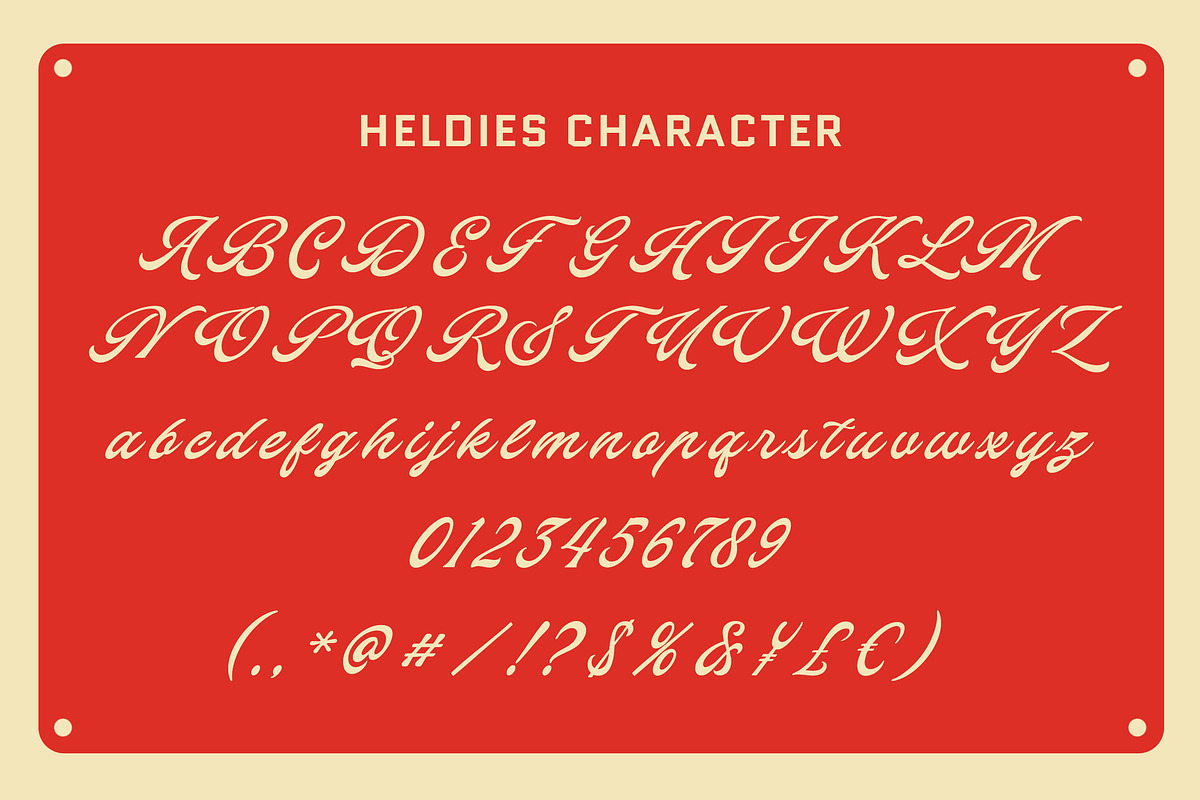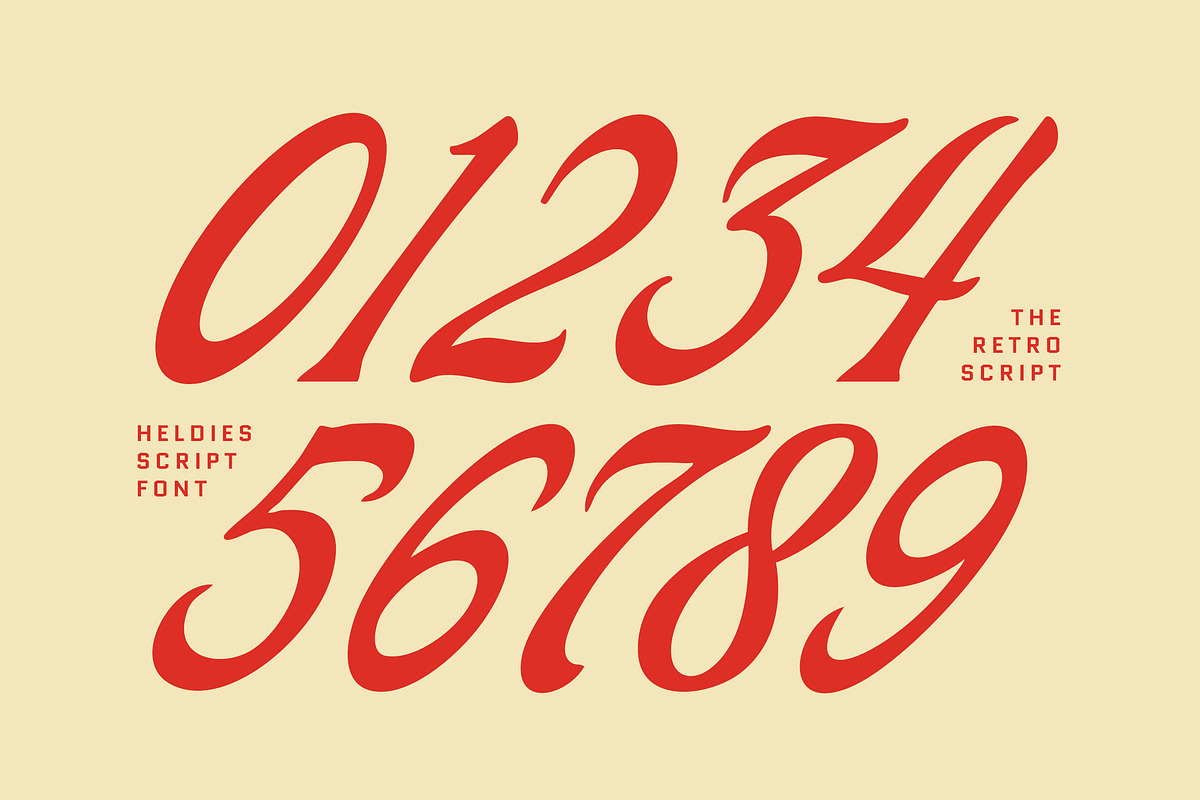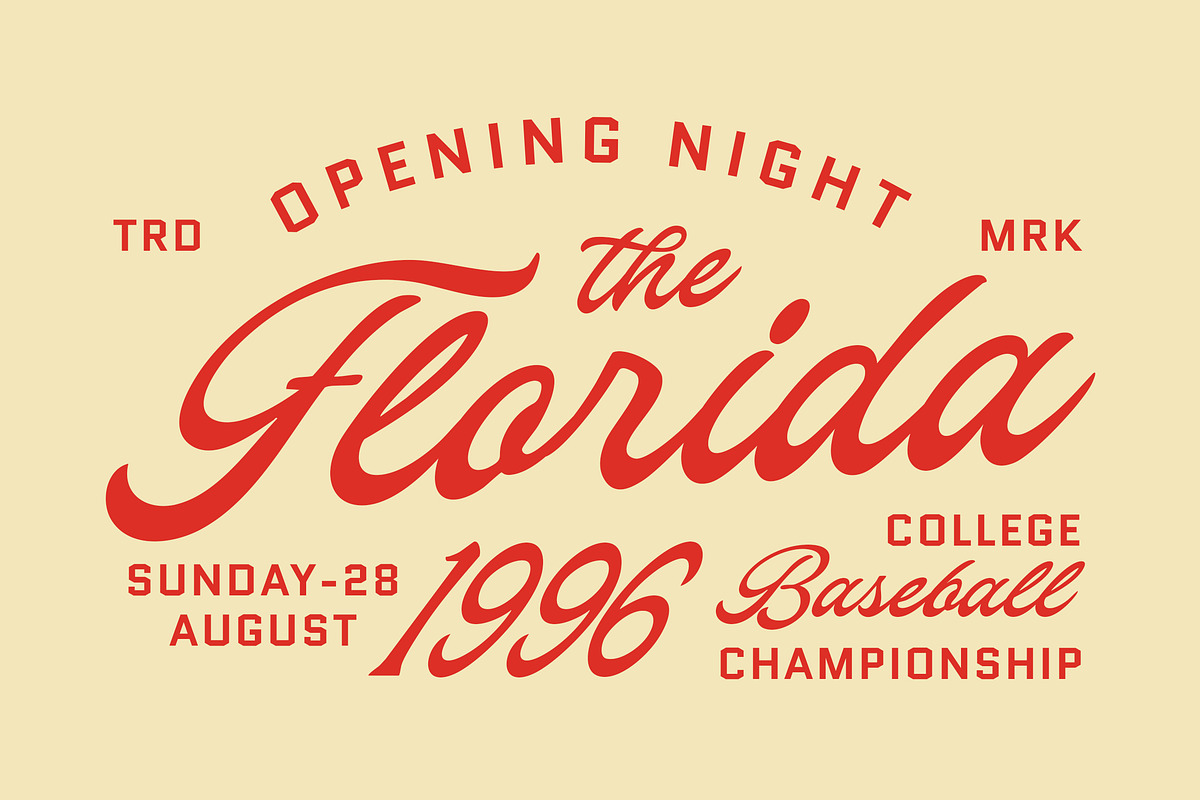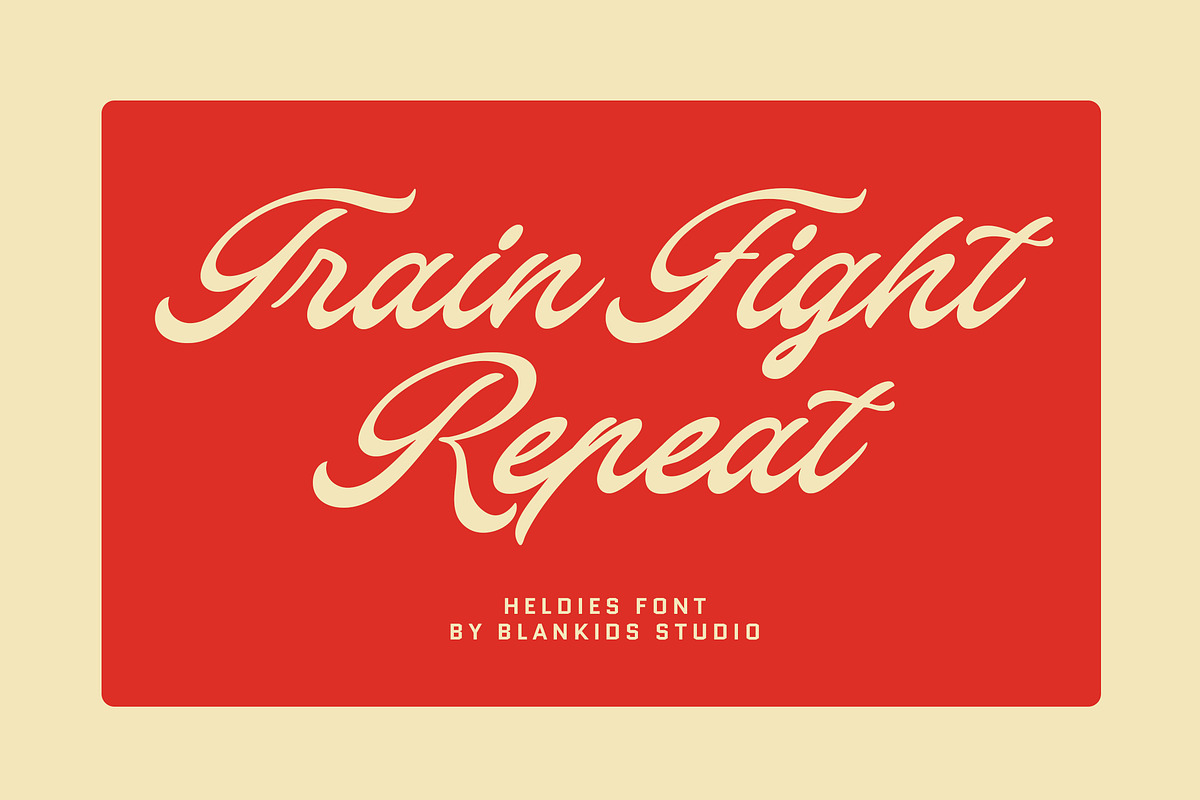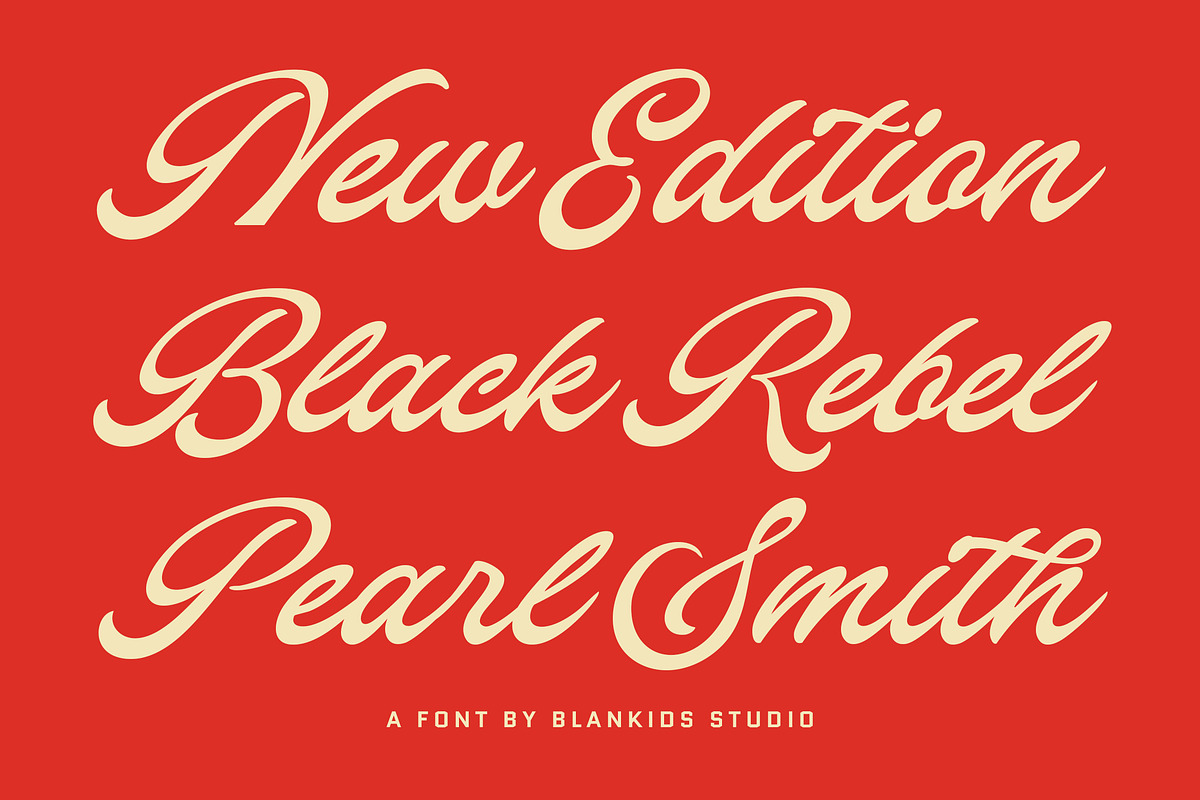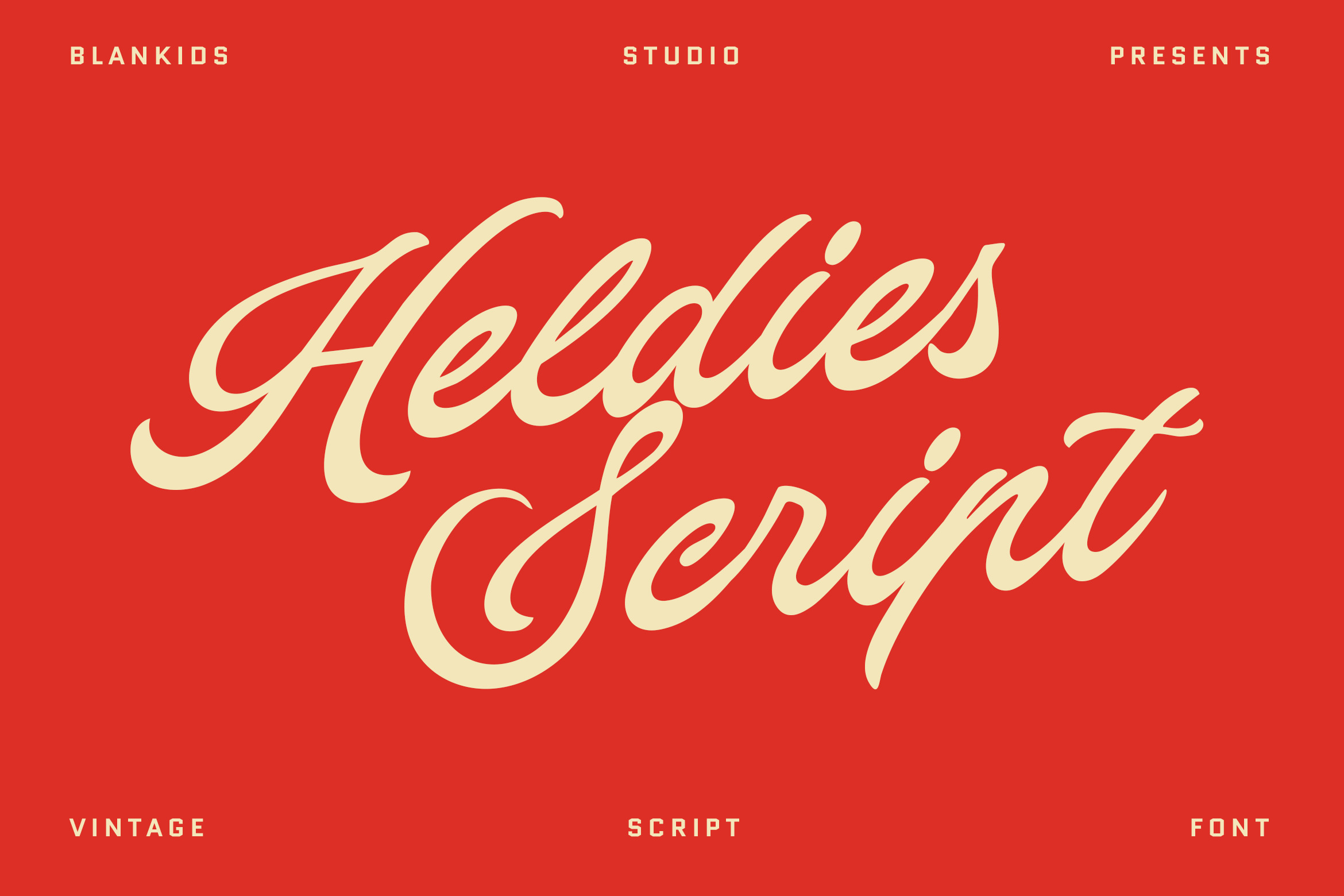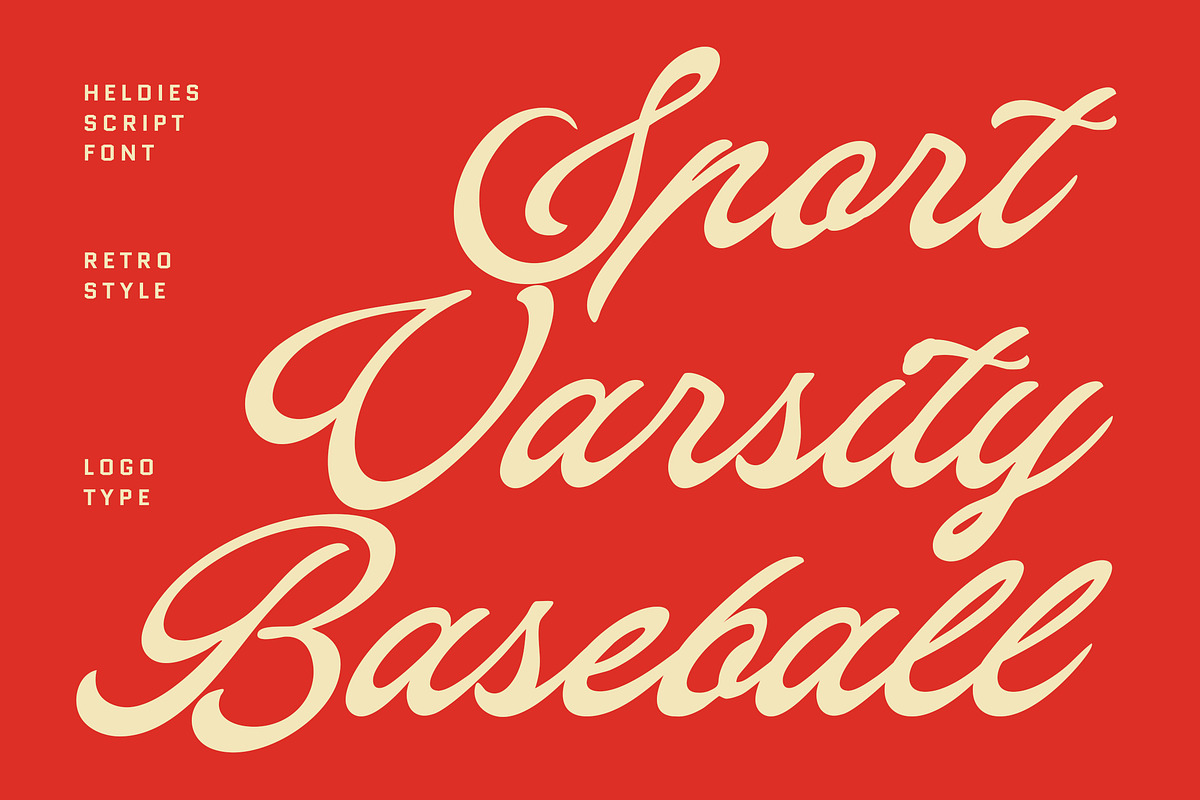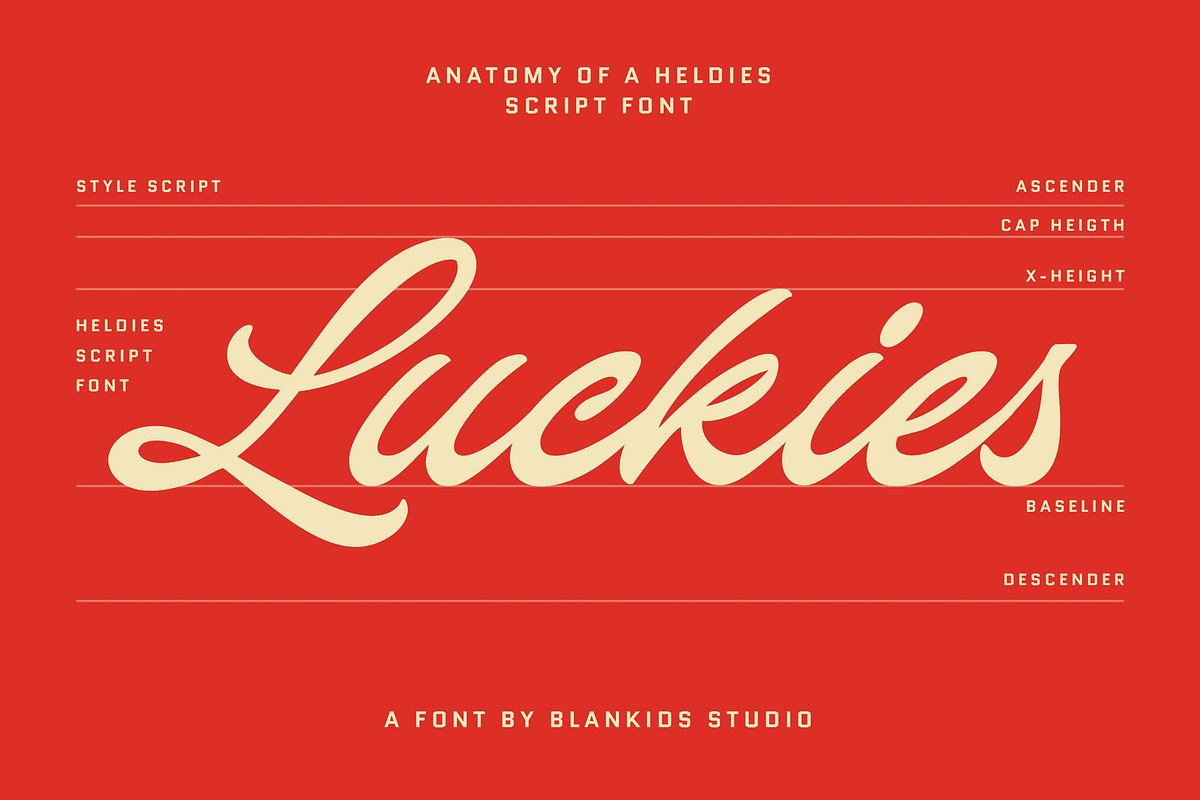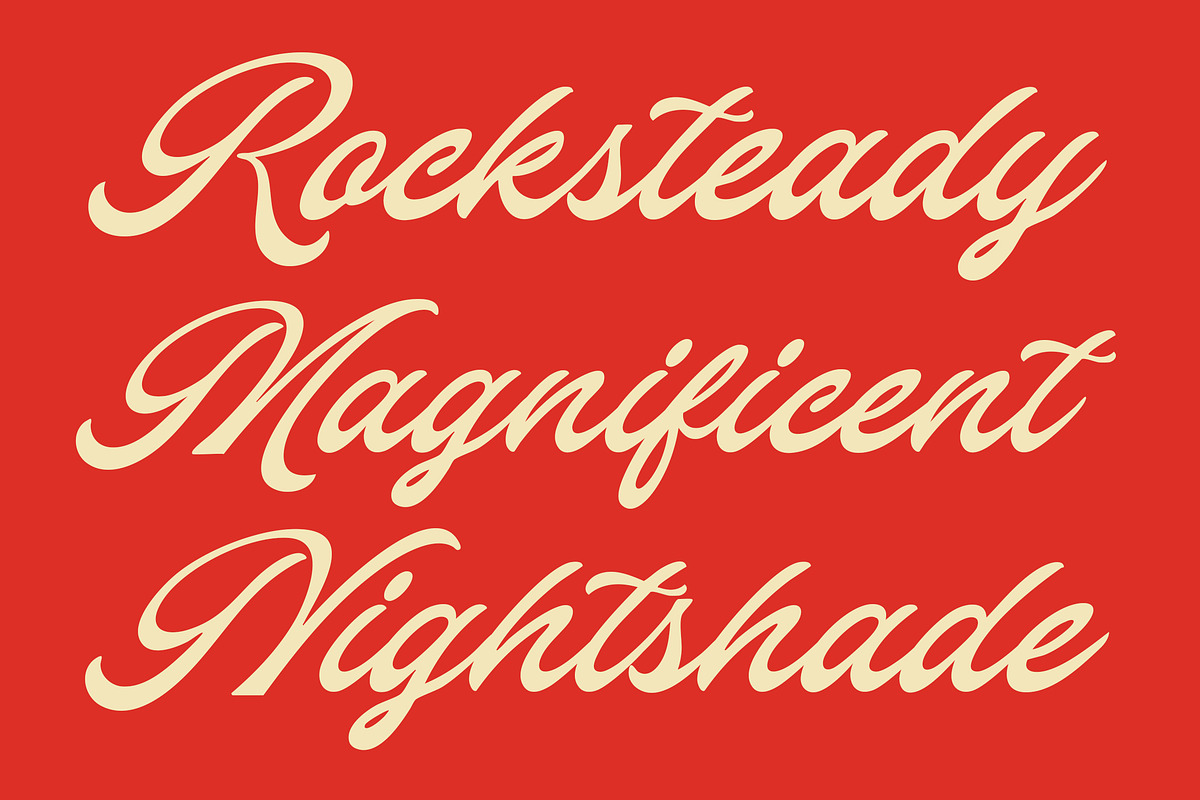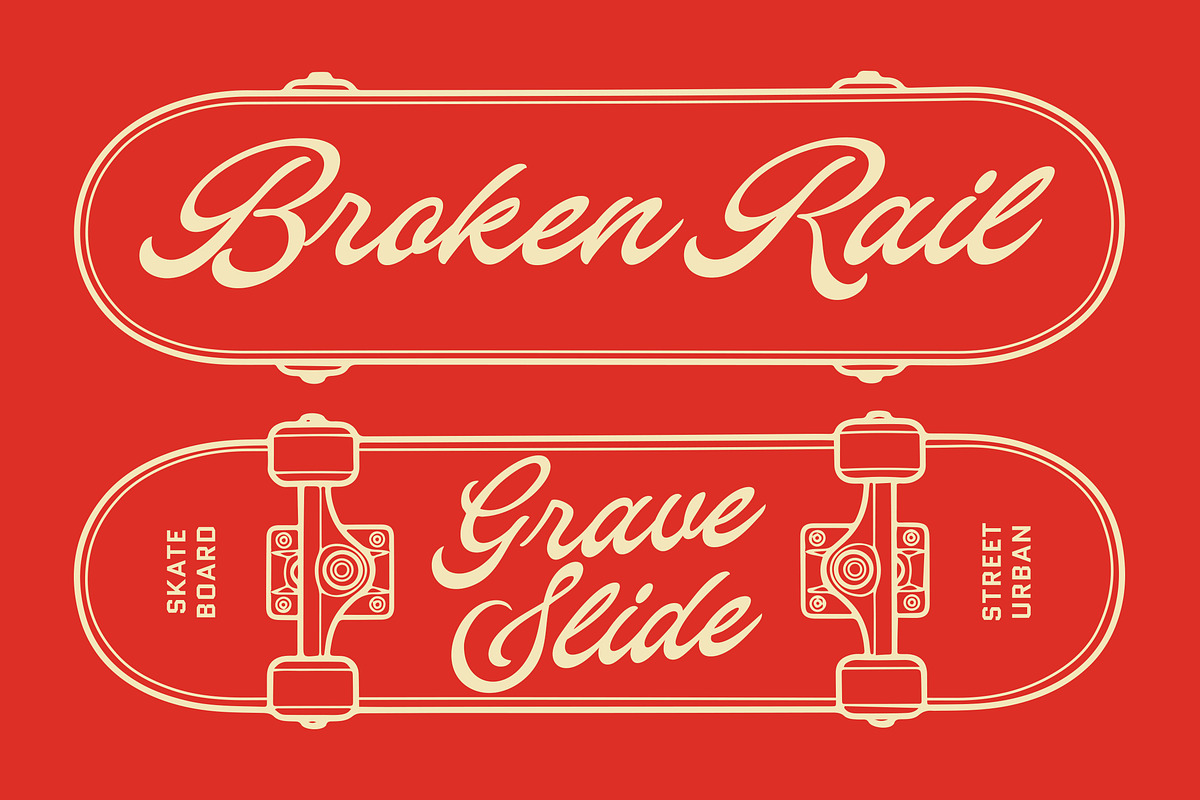
Heldies – Retro Vintage Script Font
Heldies Script Font – Retro Script with Timeless Charm
Heldies Script Font inspired retro script designed to bring warmth, elegance, and personality into your designs. With smooth curves, flowing strokes, and classic letterforms, Heldies captures a nostalgic feel while staying versatile for modern creative projects.
This script font is carefully crafted to look natural and expressive, making it perfect for branding, logos, packaging, posters, social media, and editorial designs. Its balanced contrast and clean readability allow it to stand out beautifully both in large display use and shorter text applications.
Heldies Script Font works seamlessly across digital and print projects, giving your designs a handcrafted, retro, and authentic look without sacrificing clarity.
- Logo design & brand identity
- Vintage & retro projects
- T-shirt and apparel design
- Packaging & product labels
- Posters, flyers & signage
- Social media graphics
- Wedding invitations & stationery
- Headlines, quotes & display text
- Handwritten vintage script style
- Smooth and elegant letterforms
- Uppercase & lowercase characters
- Numerals & punctuation
- Easy to use and highly readable
If you’re looking for a classic script font, vintage handwritten font, or a retro script font that adds character and charm, Heldies Script Font is a perfect choice for your creative toolbox.